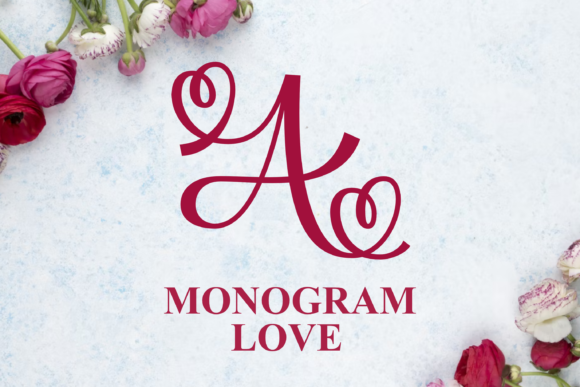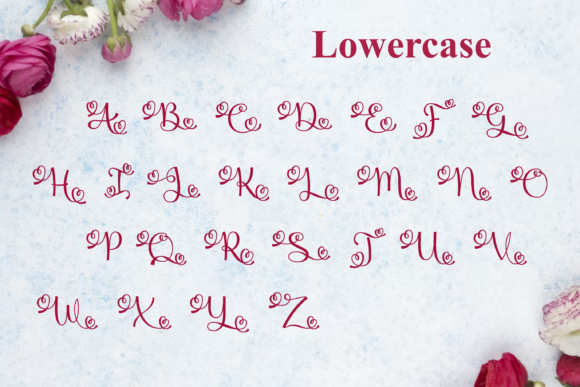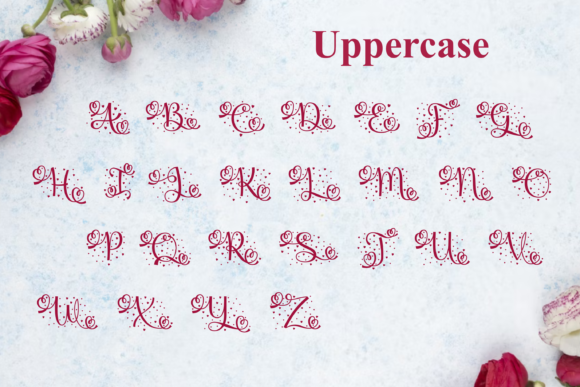
Monogram Love Font
About the Monogram Love Font
Make a bold statement with Monogram Love Font, a powerful and memorable font. Monogram Love is a gorgeous and distinct display font. No matter the topic, this font will be an incredible asset to your fonts’ library, as it has the potential to elevate any creation.
Monogram Love’s elegant and distinct forms make it ideal for headlines, logos, and short impactful phrases in branding materials or posters. Its decorative nature lends itself well to projects requiring a touch of sophistication, such as high-end product packaging or wedding invitations. However, its intricate details make it unsuitable for body text or UI elements where readability is paramount. Avoid using it for long paragraphs or small sizes.
The strong personality of Monogram Love is best complemented by pairing it with simpler fonts. A clean sans-serif like Helvetica Neue would provide a stark contrast and enhance readability in supporting text. For a more harmonious pairing, consider a classic serif typeface such as Garamond or a subtly geometric sans-serif such as Futura.
This font exudes a sophisticated and romantic personality, perfect for brands aiming for a luxurious or classic feel. Its decorative style makes it less suitable for projects needing a modern or minimalist aesthetic.